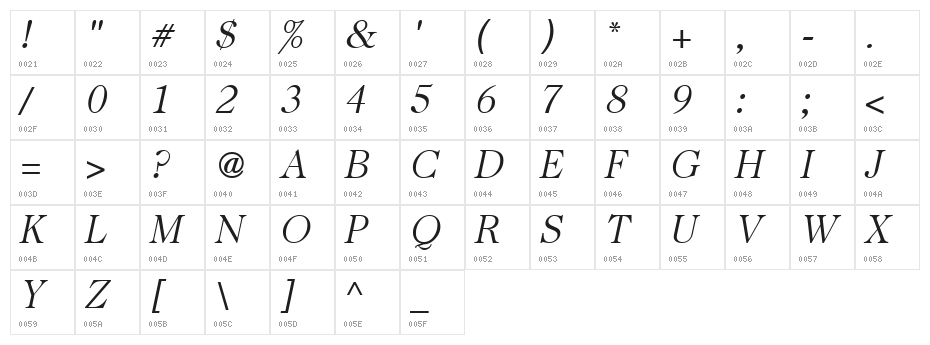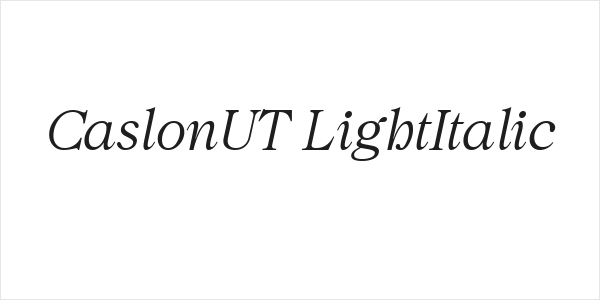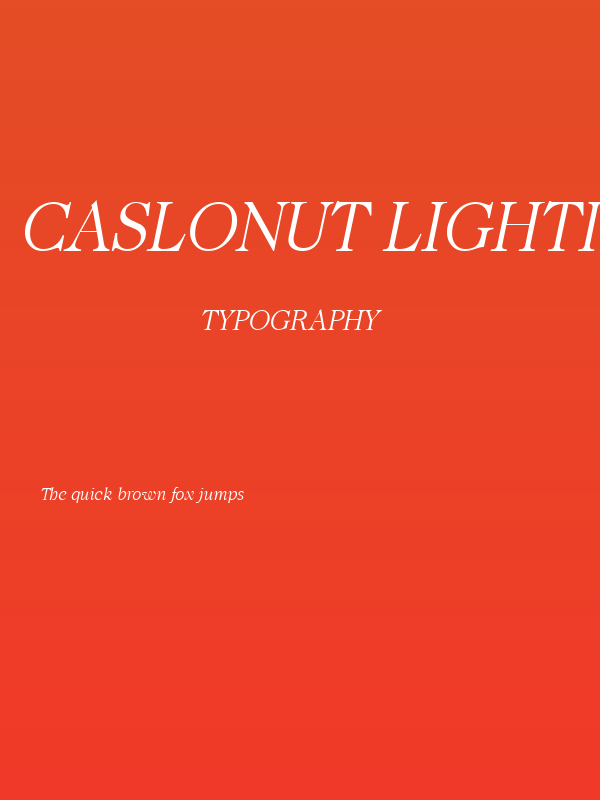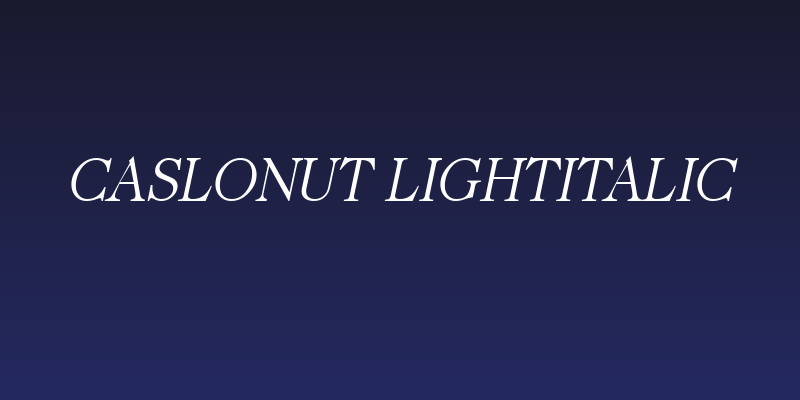
CaslonUT LightItalic Font
CaslonUT LightItalic Description
This elegant serif typeface features a classic and timeless design with a light weight and italic style. The characters exhibit a graceful slant, enhancing the traditional serif elements with a touch of sophistication. The strokes are moderately contrasted, providing a refined appearance suitable for formal and professional applications. The font maintains a balanced character spacing, ensuring readability while preserving its aesthetic charm. Its versatile nature makes it ideal for a variety of uses, from editorial content to branding materials.